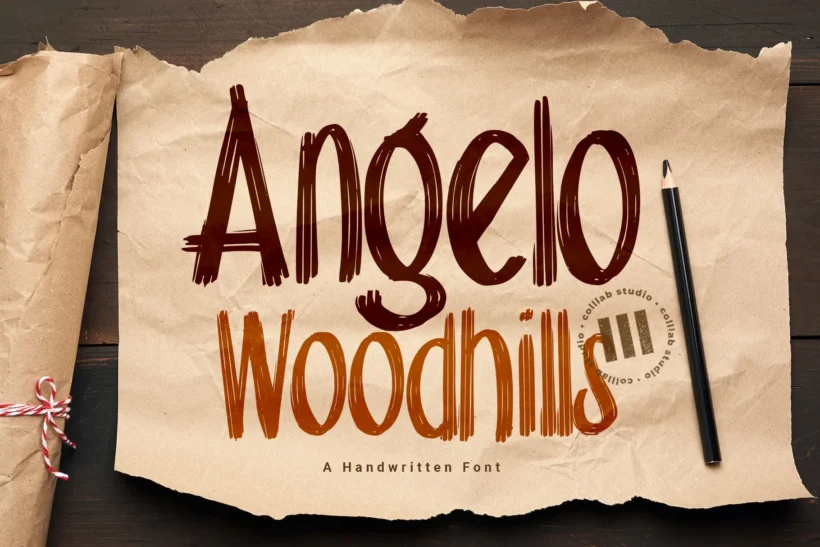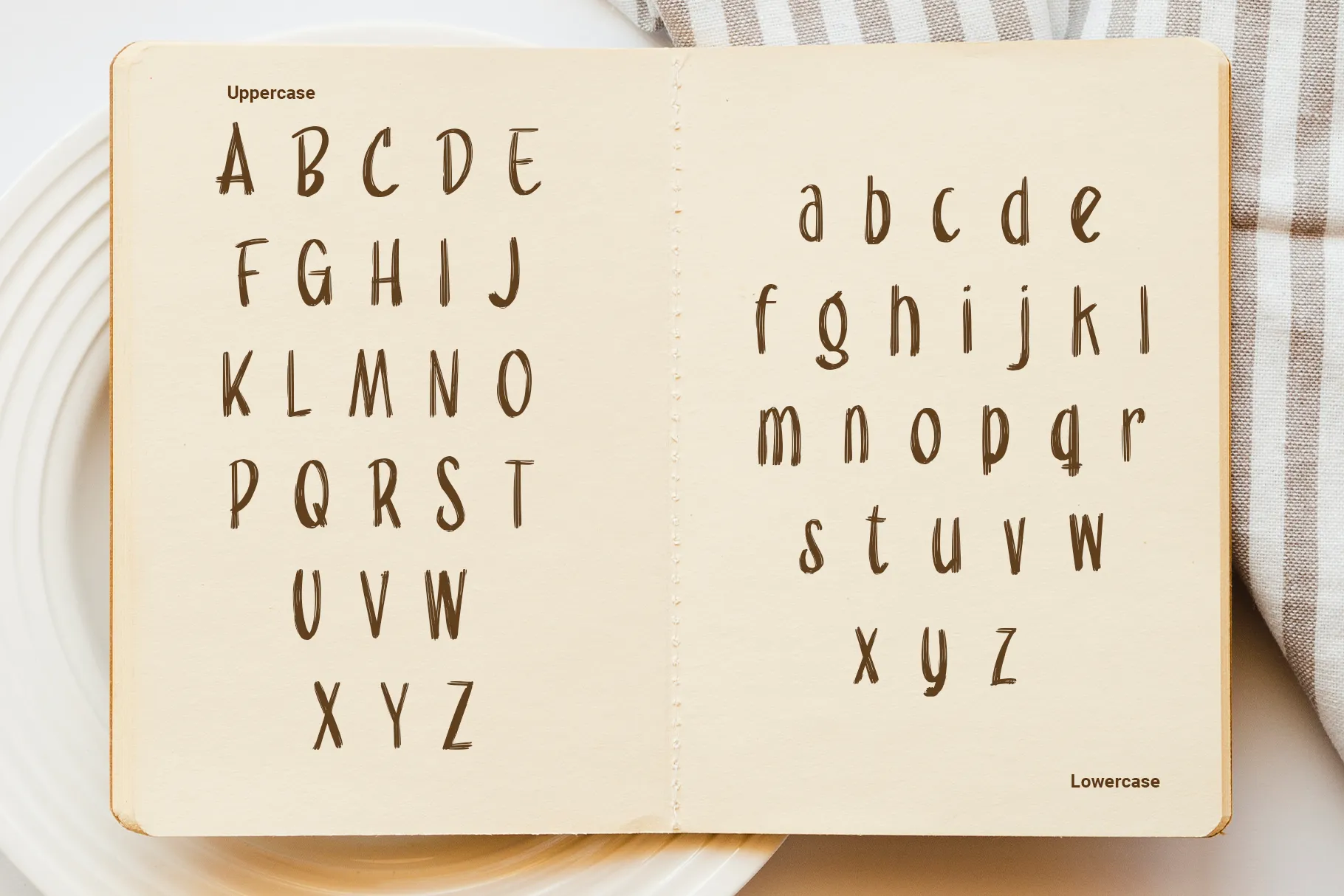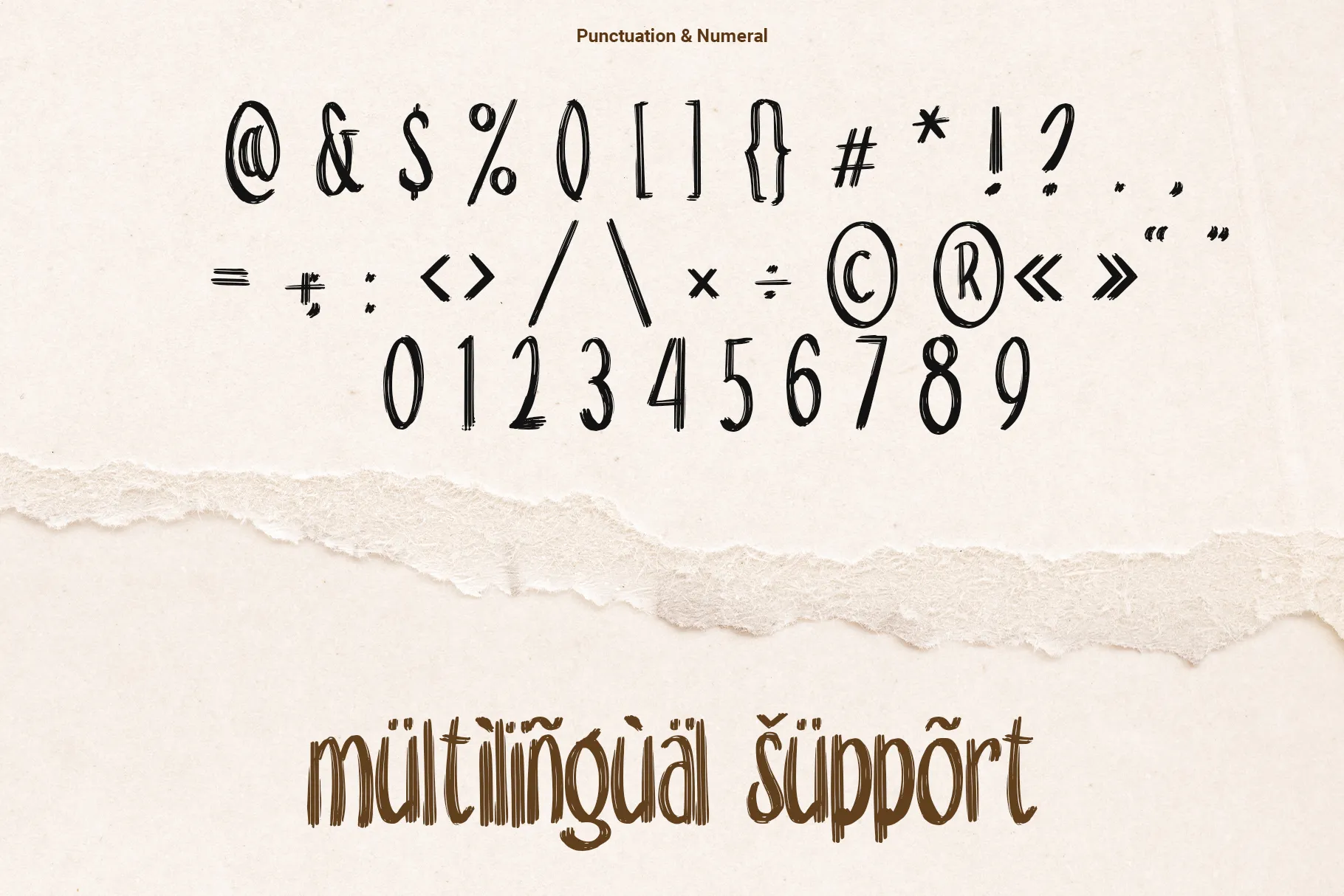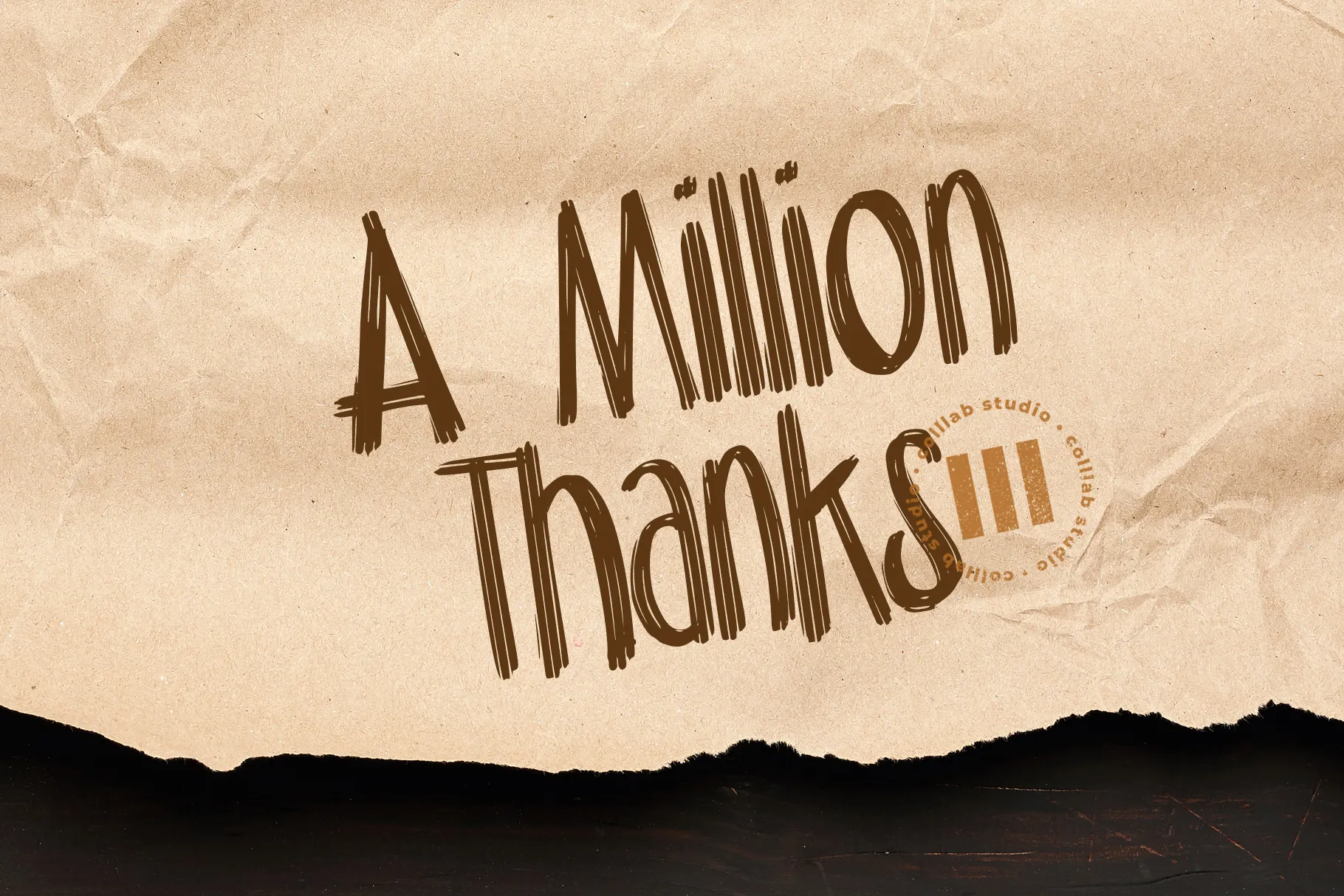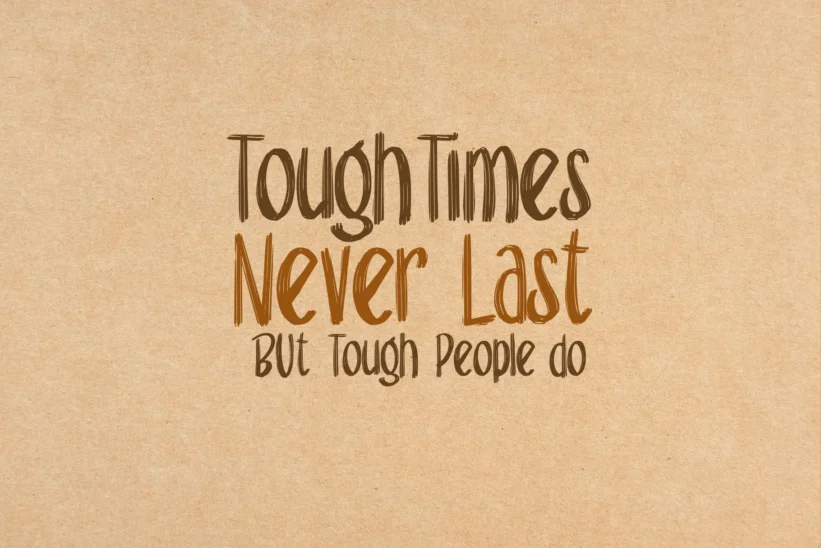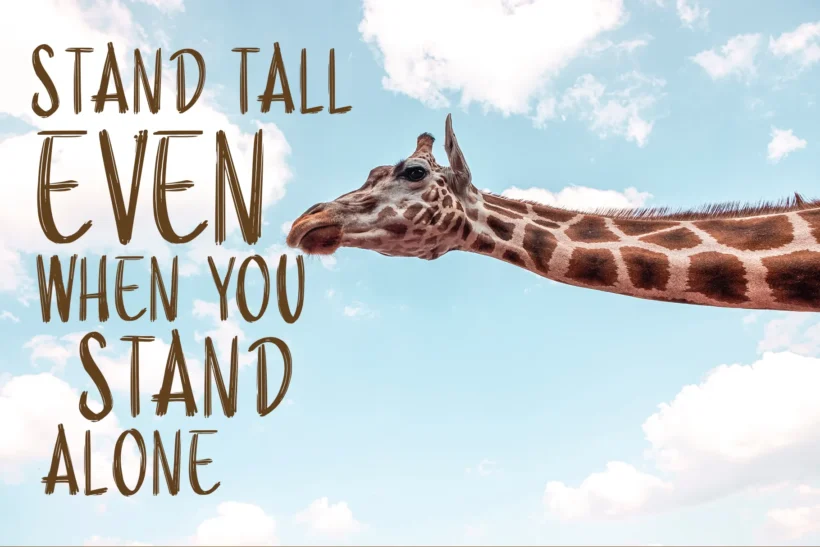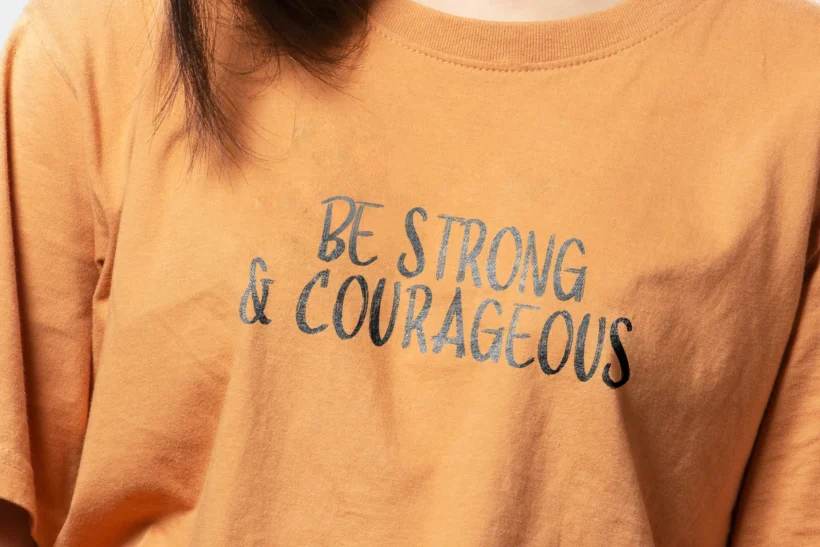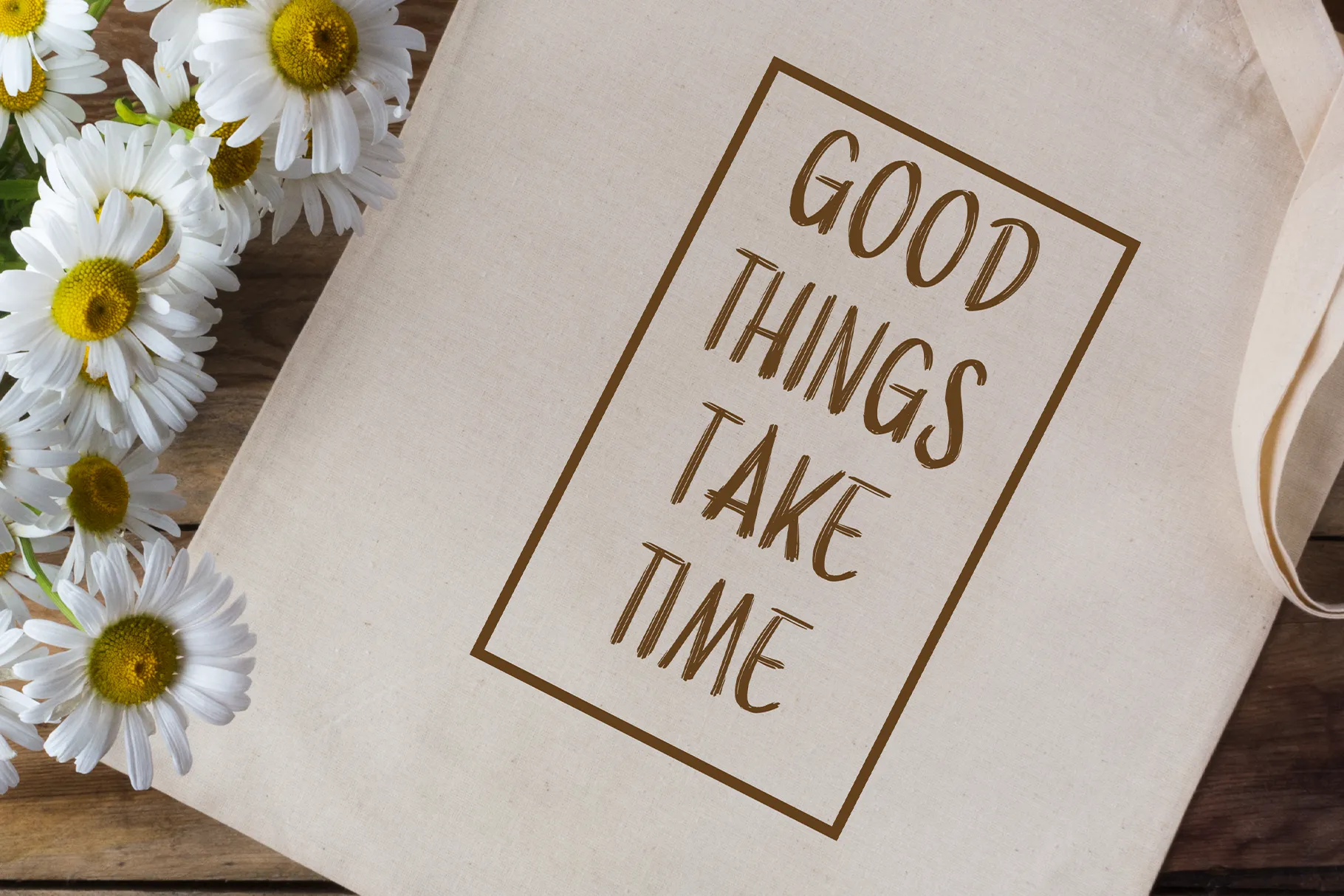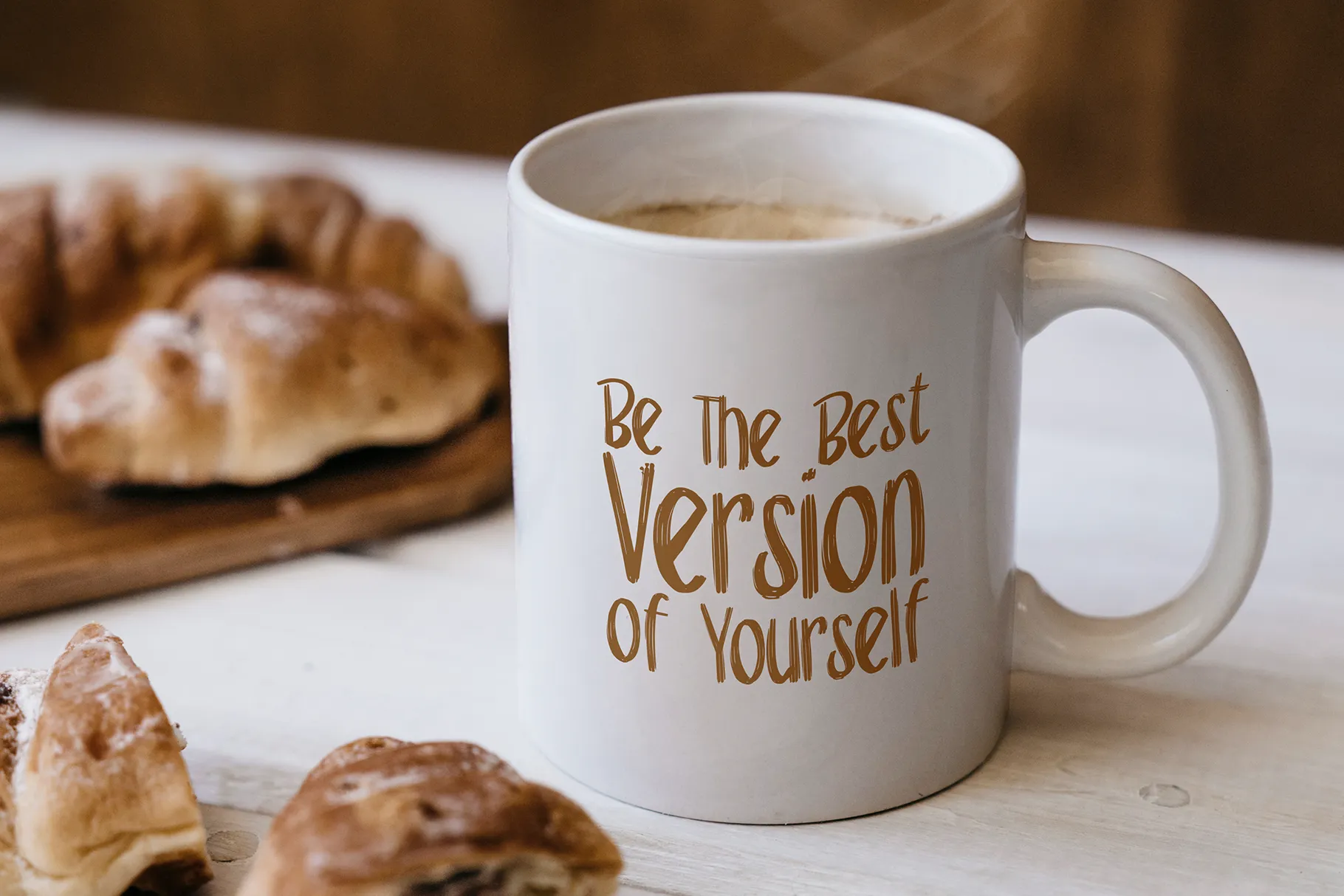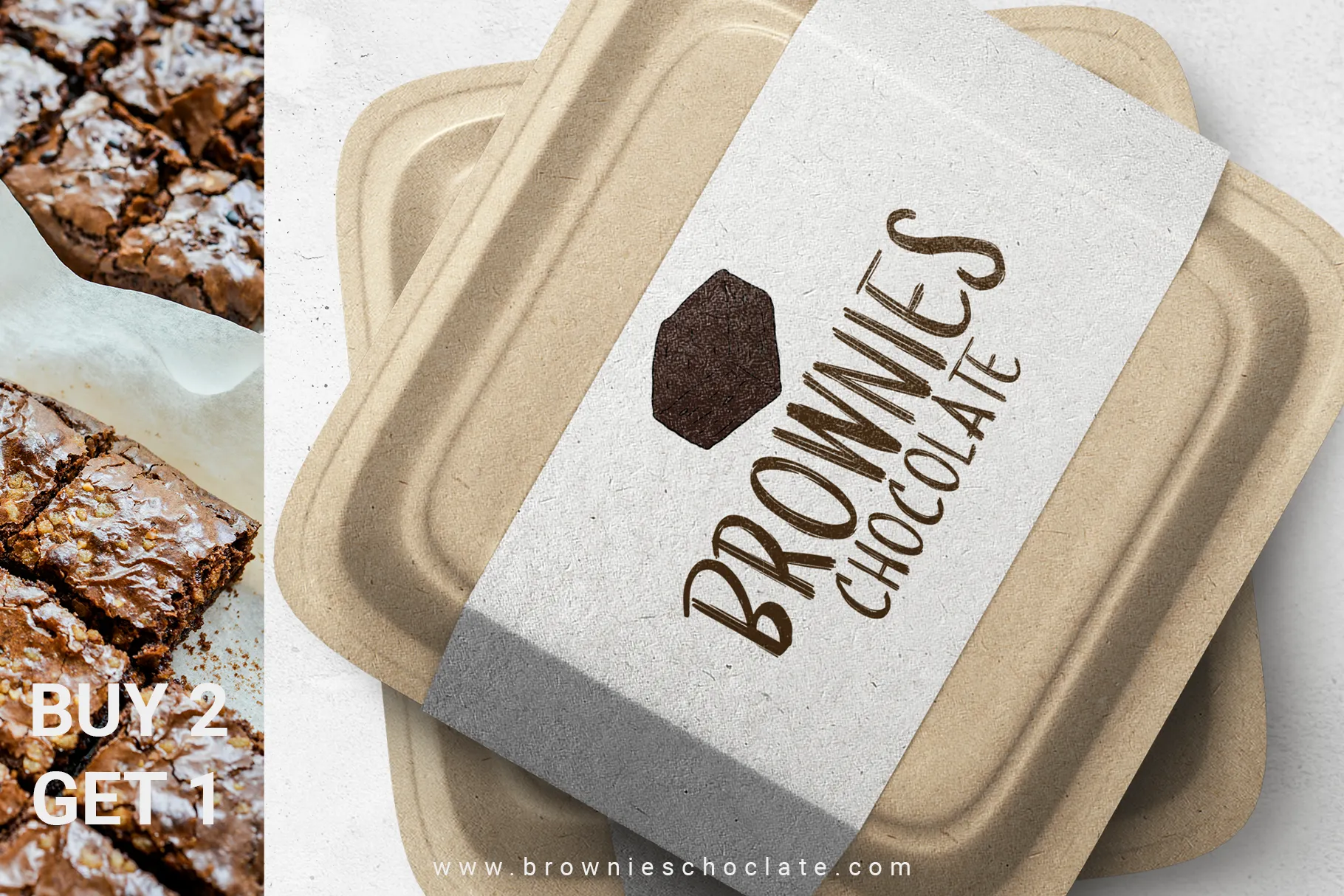
Angelo Woodhills
Angelo Woodhills is a bold and organic handwritten font that captures the essence of raw creativity and natural imperfection. Its textured strokes and handcrafted feel bring a rustic charm that makes every design feel personal and authentic. Perfect for branding, packaging, posters, and social media, this font adds a warm, approachable character to your projects.
Inspiration Behind the Font
Inspired by the rugged textures of wood grains and the free-flowing nature of hand-drawn lettering, Angelo Woodhills embodies a balance of artistry and authenticity. The font draws from earthy, outdoor aesthetics—imagine hand-painted signs in cozy cafes, artisan packaging, or handwritten notes on kraft paper. This inspiration gives Angelo Woodhills a versatile personality, blending modern playfulness with natural warmth.
Key Features
• Handwritten Texture – Authentic strokes with textured lines that mimic real pen-and-ink movement.
• Versatile Use – Ideal for logos, posters, packaging, invitations, quotes, and more.
• Punctuation & Numerals – Complete set of numbers and symbols to support diverse design needs.
• Multilingual Support – Covers multiple languages for global creative projects.
• Rustic Aesthetic – Perfect for designs that seek a handcrafted, organic, and artisanal vibe.